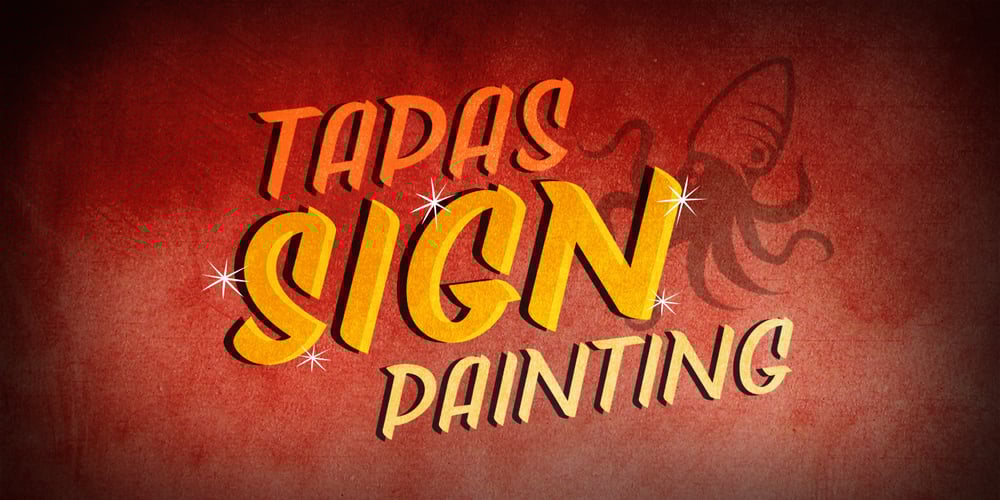
Tapas Signpainting
Tapas Signpainting font
Tapas Signpainting Font Family was designed by Dani Cifuentes and published by Cifonts. Tapas Signpainting contains 6 styles and family package options. Tapas Signpainting is a typeface based on traditional sign painting letters designed by Cifonts. This family has six variants and is useful to compose display texts, vintage logos, headlines & packaging.